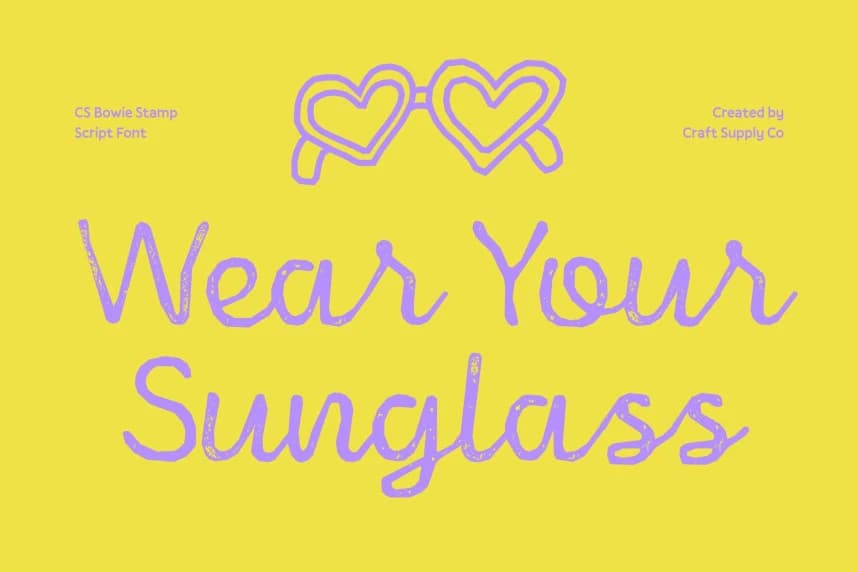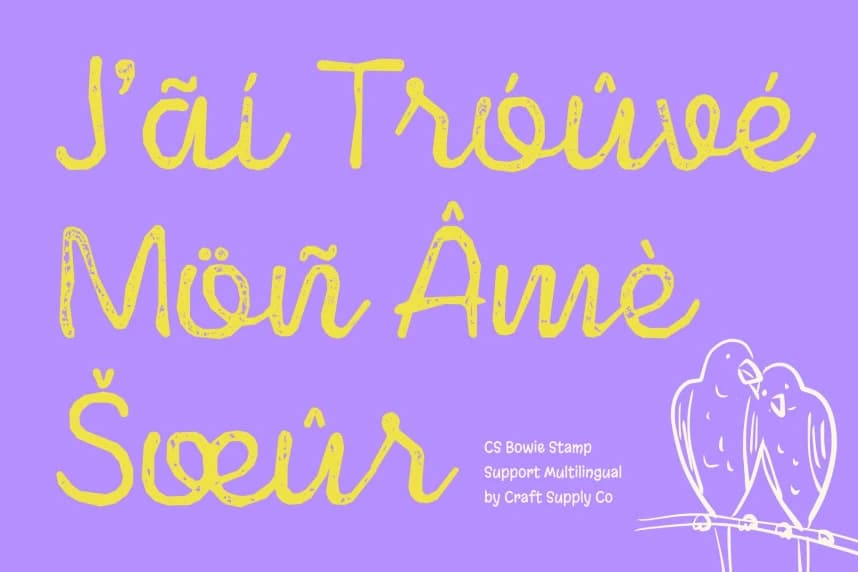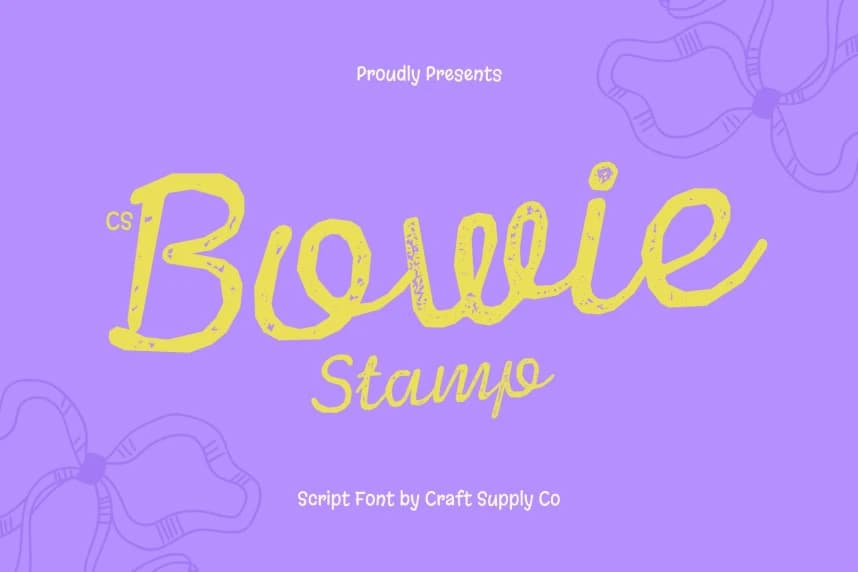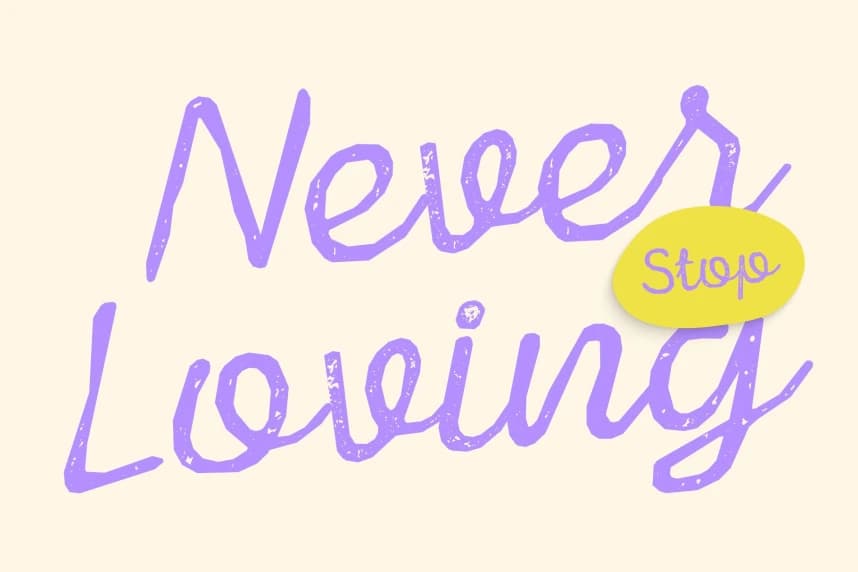
CS Bowie Stamp Font
CS Bowie Stamp Font – Script Font with Flowing Elegance and Stamped Texture Natural Script Enhanced with Stamped Charm This transforms its clean, flowing handwritten strokes with a delicate stamped texture, adding subtle irregularities and ink-like impressions that evoke handcrafted authenticity.